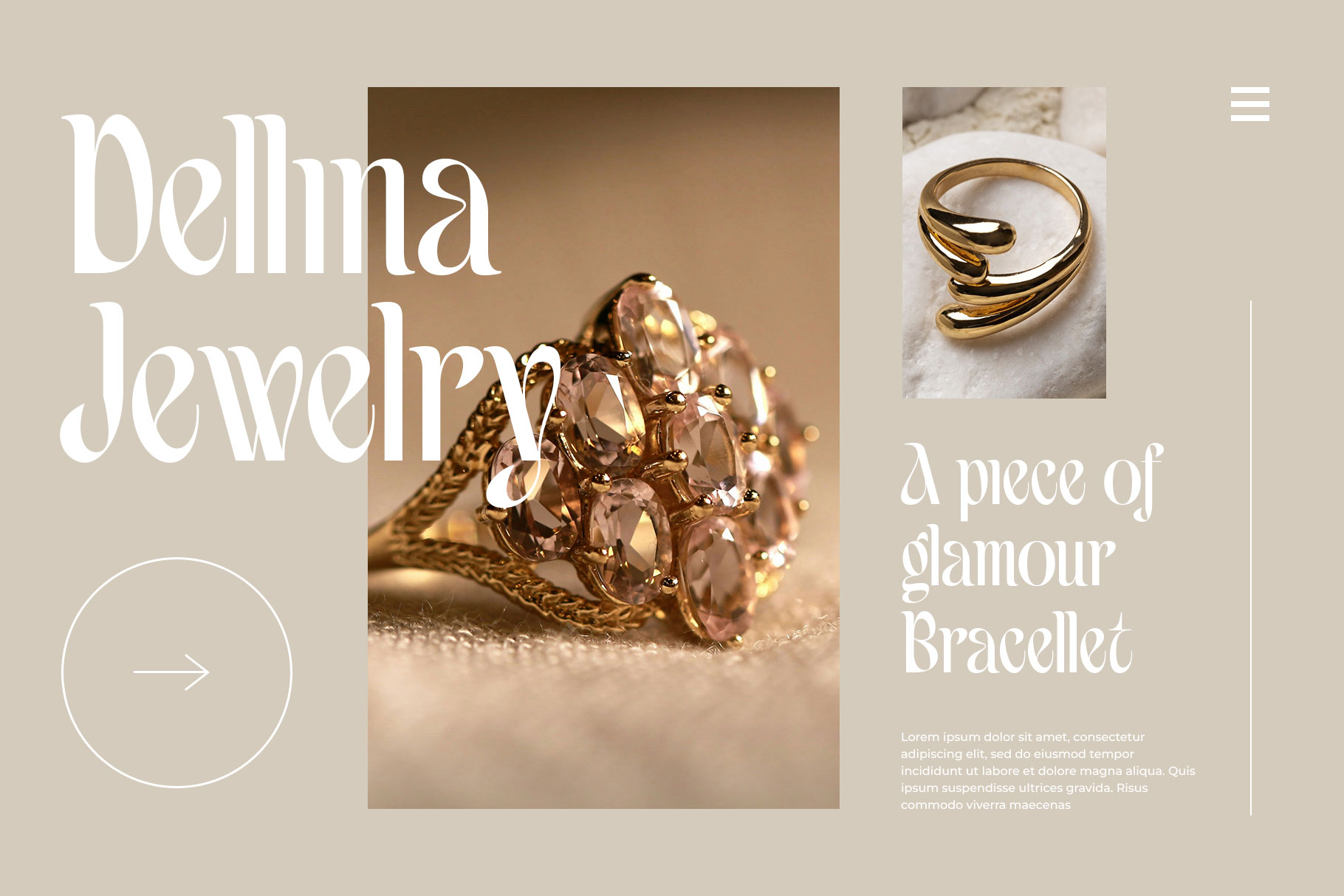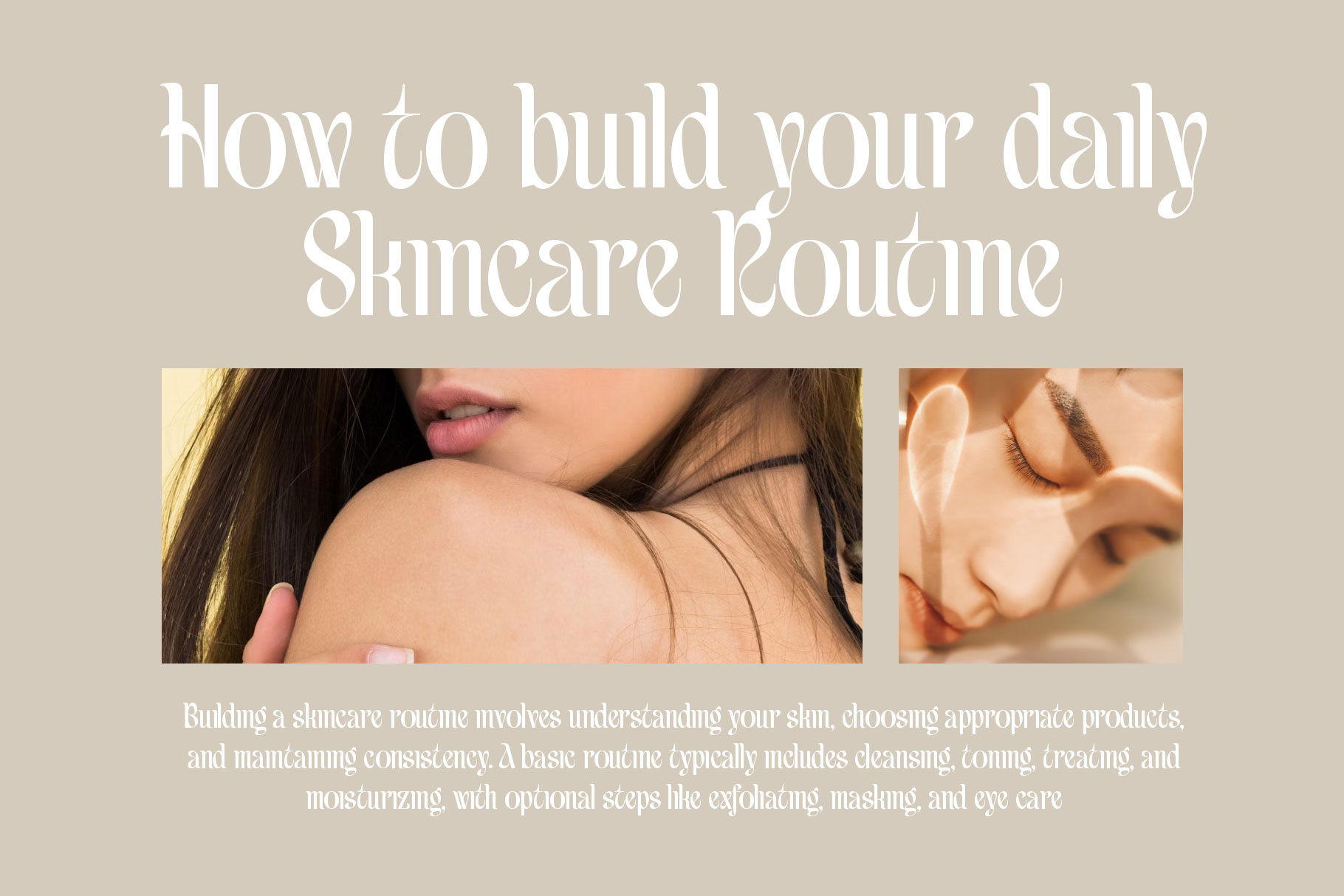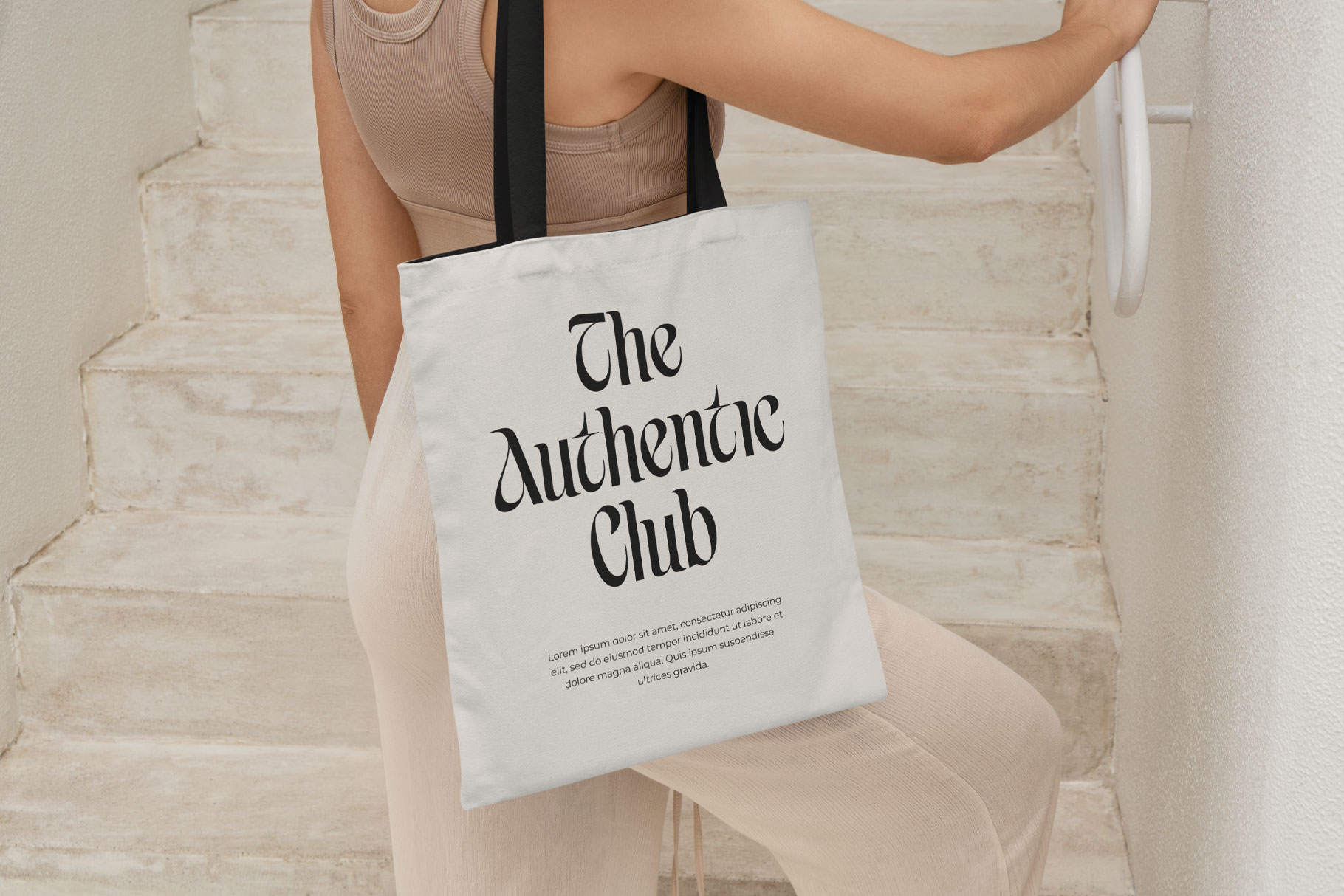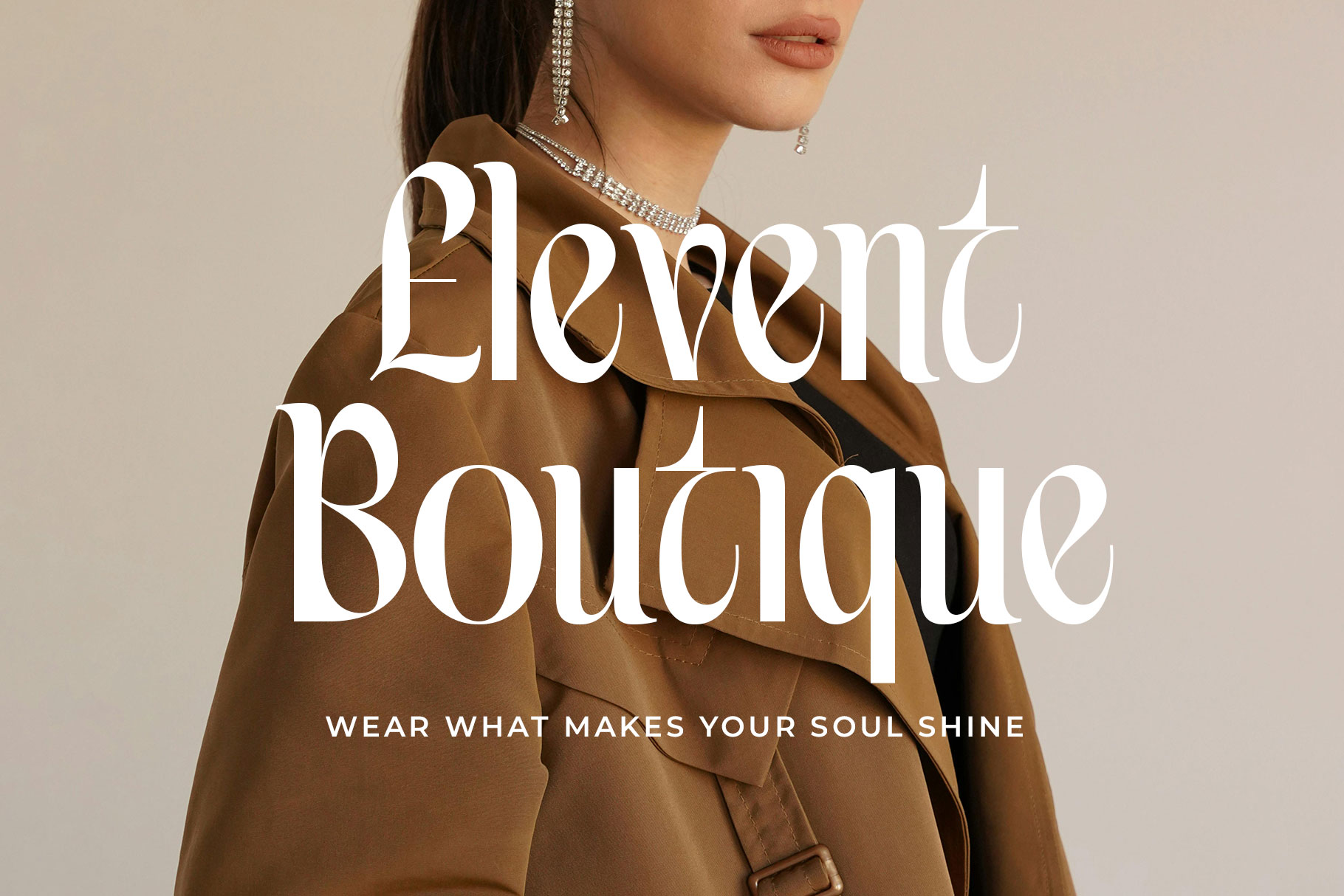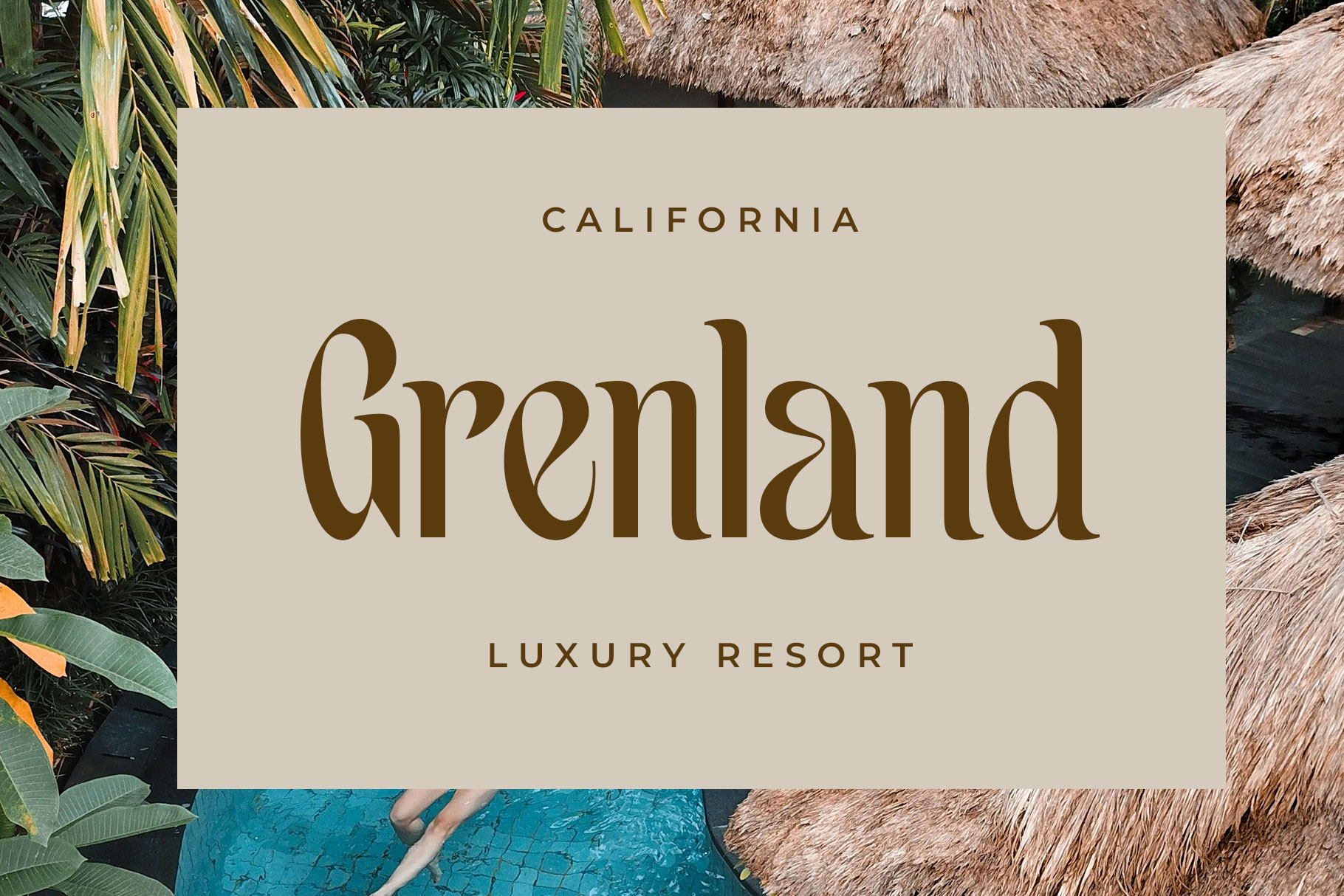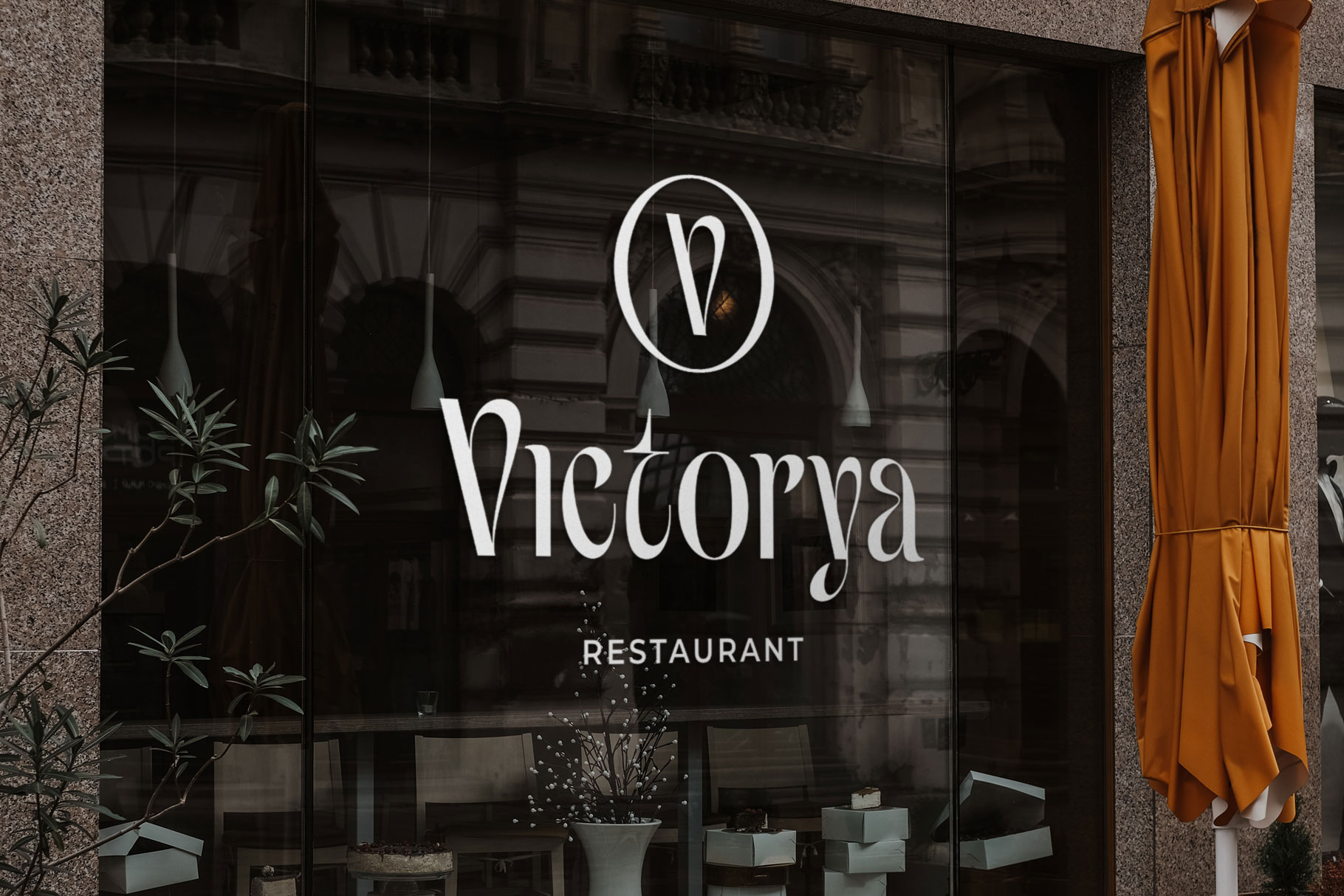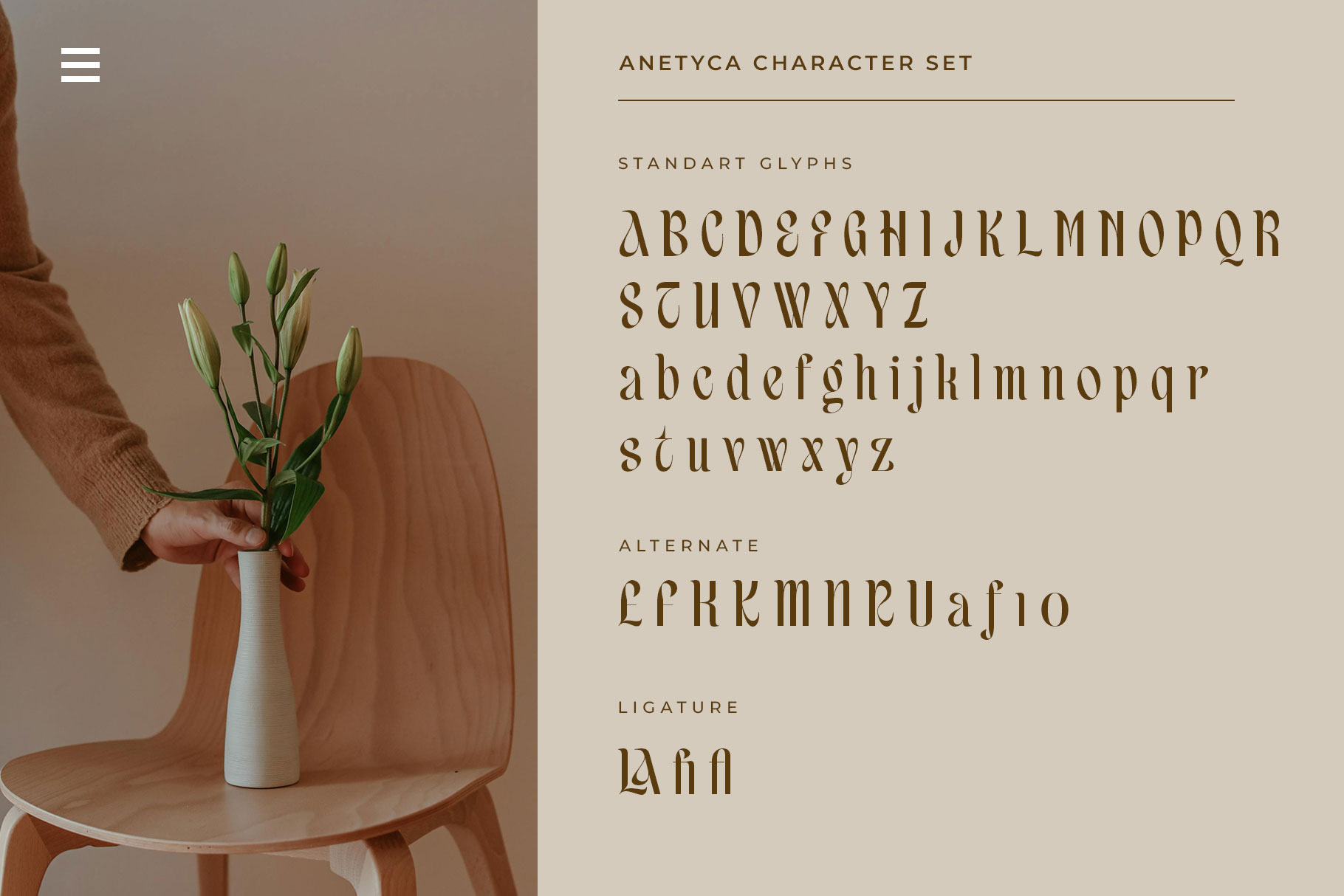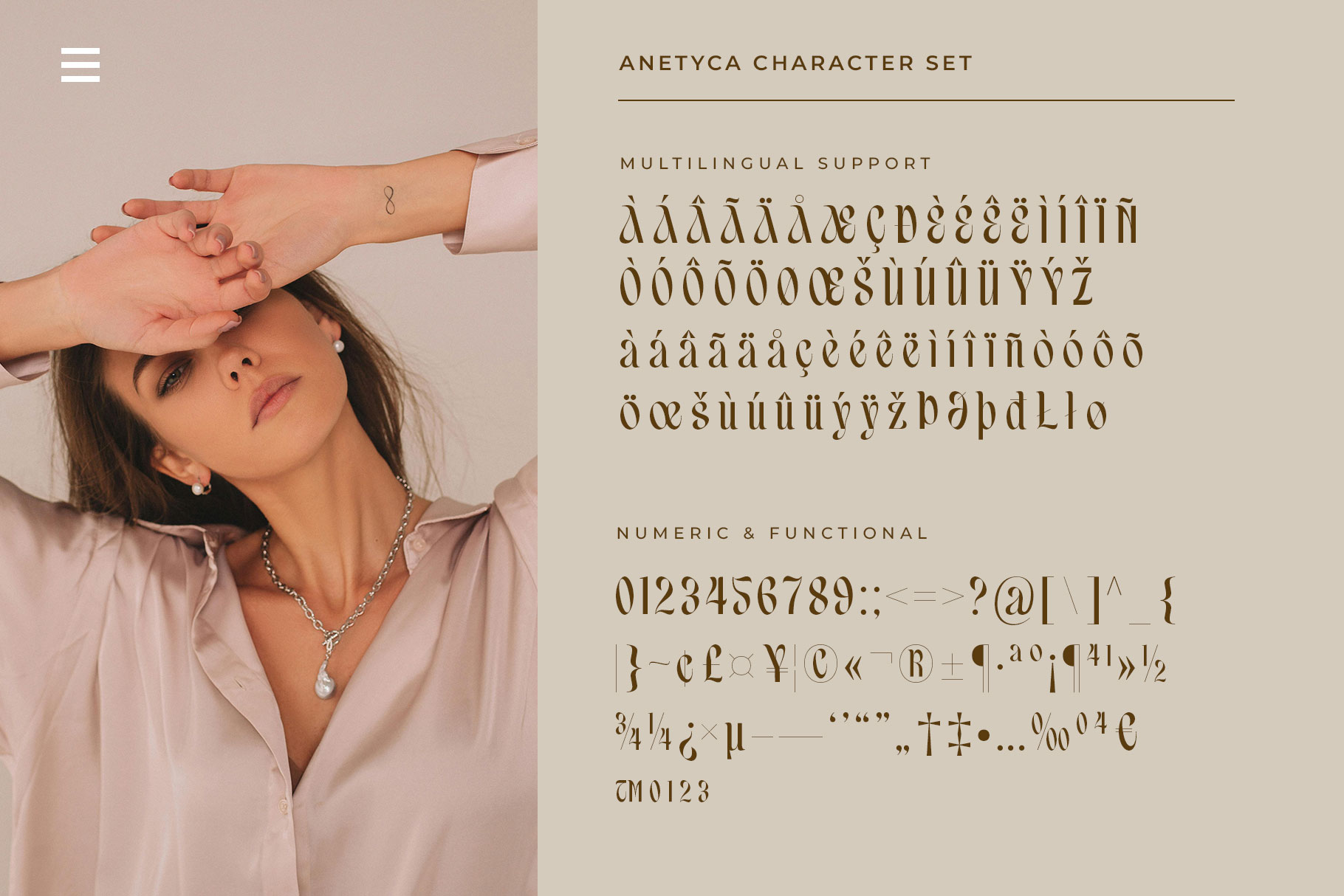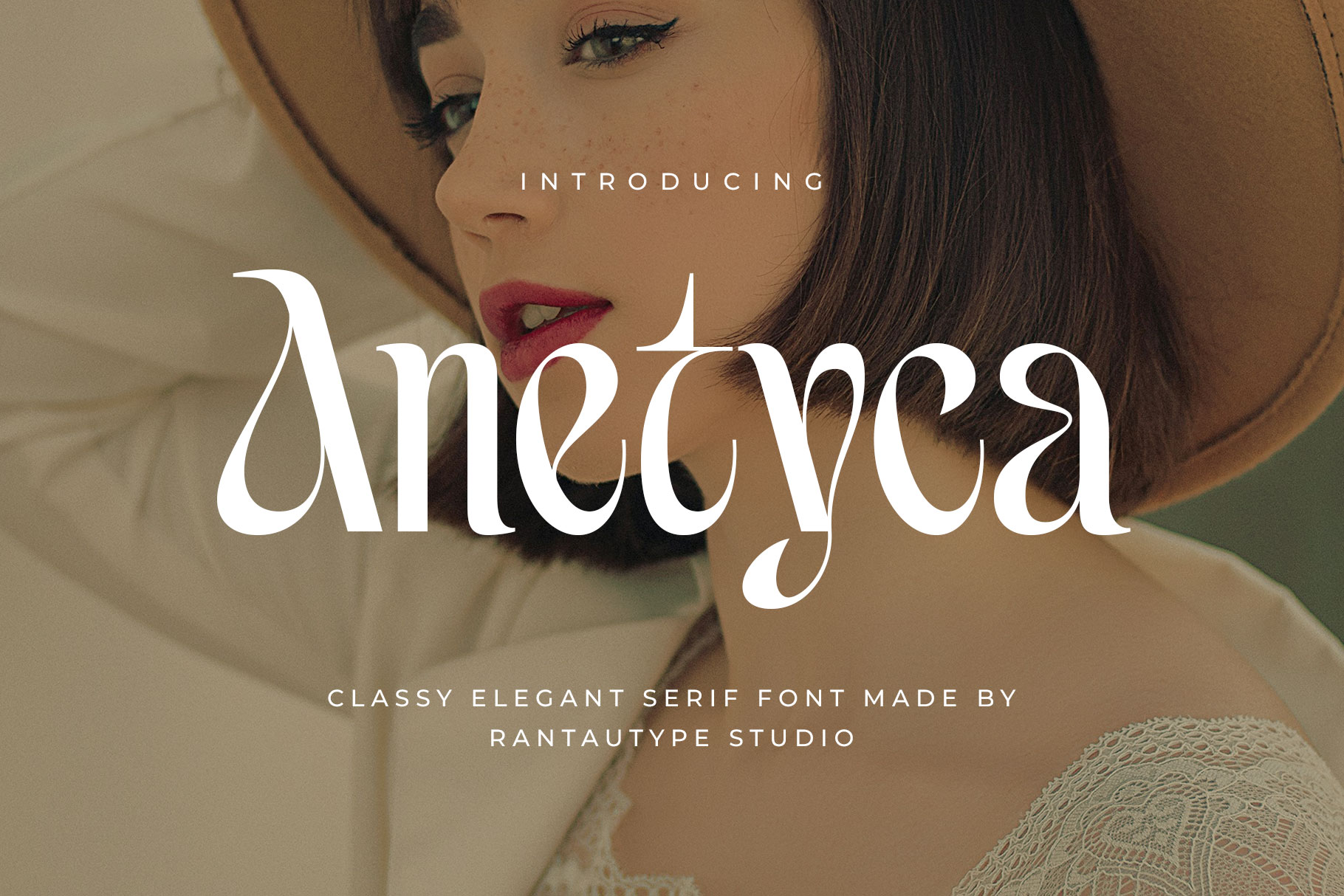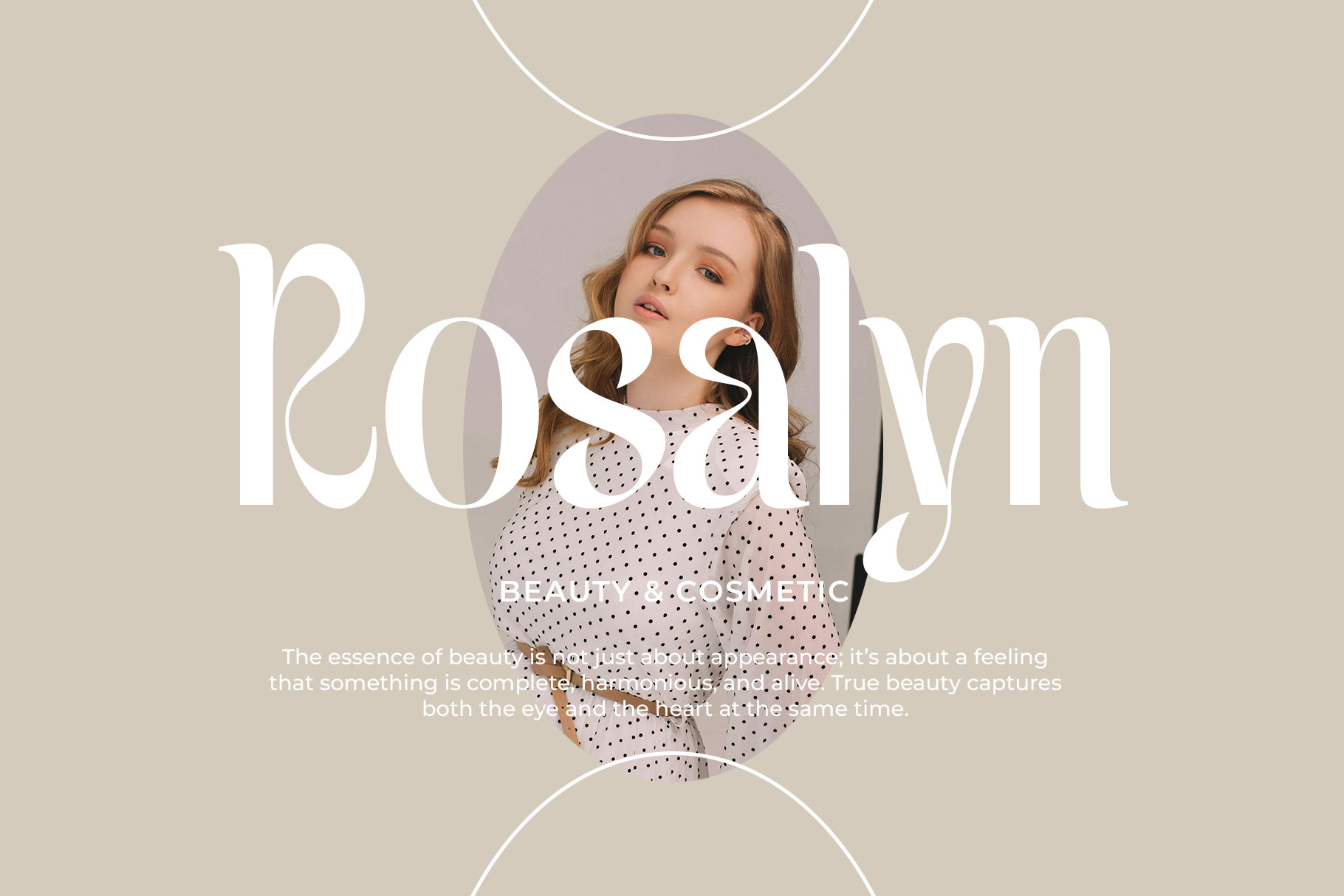
Anetyca Classy Elegant Serif Font
Anetyca is classy serif font with slightly contrasting thick and thin lines, giving it a refined look. Anetyca bring delicate character to add sophistication.
Anetyca is a perfectly choice for any creative endeavor, chic, lifestyle design such as logotype, advertisements, watermark on photography, stationery, branding project, display and magazine, invitation, corporate brand, product design, label, business project and many other project with modern touch.